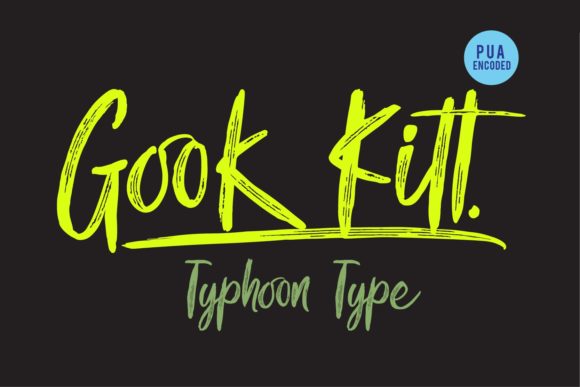
Gook Kitt Font
About Gook Kitt Font
Gook Kitt is a fun and bold handwritten font with a lot of authenticity! It will add a unique spark to any design project.